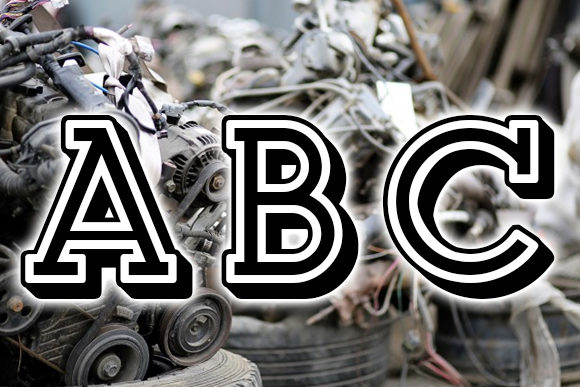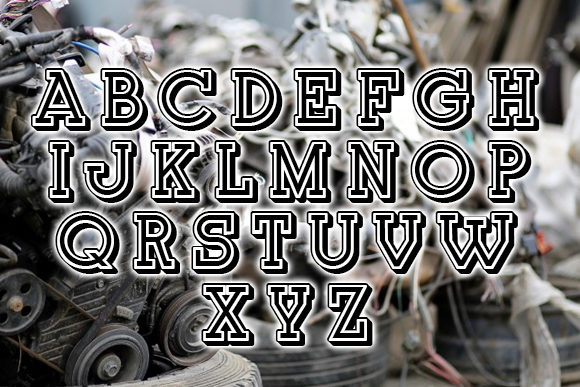
Introduction to Junk Font
Have you ever stared at a blank page, eager to bring your creative vision to life, only to be hindered by the perfect font? It’s that elusive combination of style and sophistication that can make or break your project. For designers, the quest for the perfect font is a never-ending journey. But what if I told you that there’s a game-changing solution waiting to be discovered?
Enter the Junk Font, a masterfully designed display font that’s set to revolutionize the way you approach your creative projects. With its unique style and high-quality design, the Junk Font is the ultimate design resource for any project that demands attention and sophistication.
Key Features of Junk Font
- High-quality design: This font is crafted with attention to detail, ensuring that it meets the highest standards of typography.
- Large character set: Junk Font includes a wide range of characters, including uppercase and lowercase letters, numbers, and special symbols.
- Perfect for creative projects: Junk Font is ideal for use in creative projects, such as graphic design, digital art, and typography-based designs.
Honest Review: Junk Font
As a designer, I’ve come across my fair share of free download fonts, but Junk Font has caught my attention. I decided to give it a try and see if it lives up to its name.
Here are the things that work well about Junk Font: ✨ It has a unique, quirky design that can add a touch of personality to any creative project. The font is highly customizable, allowing me to adjust the size, color, and style to suit my needs. The transparent background makes it easy to overlay on top of images or other design elements. I’ve also found it to be a high quality design resource, suitable for a variety of projects.
- Unique and quirky design
- Highly customizable
- High quality design resource
However, there are some limitations to keep in mind: ⚠️ The font can be a bit difficult to read at smaller sizes, and it may not be suitable for body text. Additionally, the font may not be as versatile as some other options, so it’s best used for specific design elements.
Overall, I’m impressed with Junk Font. While it may not be perfect, it’s a great addition to any designer’s toolkit, especially for creative projects that require a unique touch.
Tips for Getting the Most Out of Junk Font
To get the most out of Junk Font, experiment with different font sizes, colors, and styles. You can also use it in combination with other design resources, such as high-quality images and graphics, to create a cohesive and engaging design.
Junk Font is ideal for creative projects, such as logos, brochures, and social media graphics. Its unique style and transparent background make it a great choice for designers looking to add a touch of sophistication and elegance to their designs.